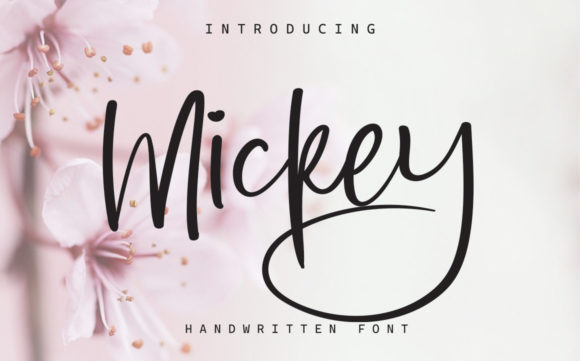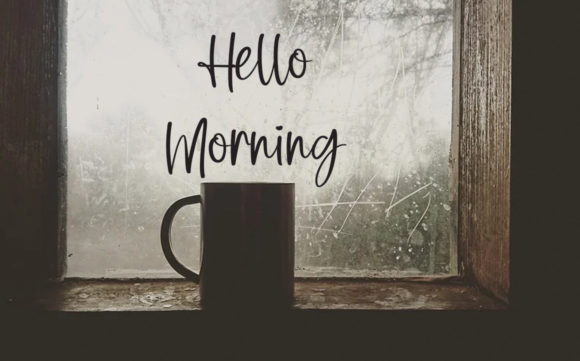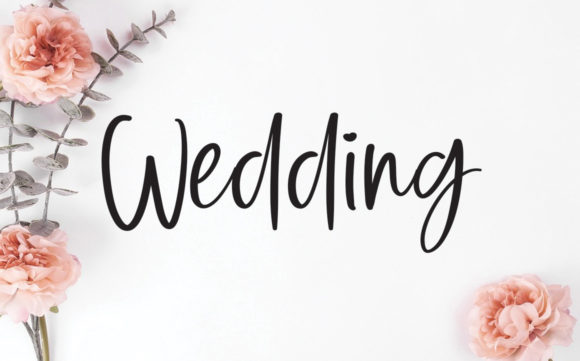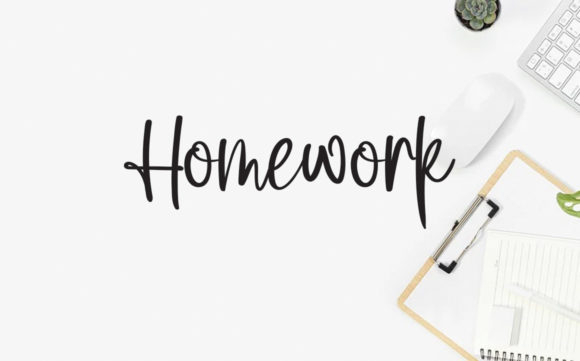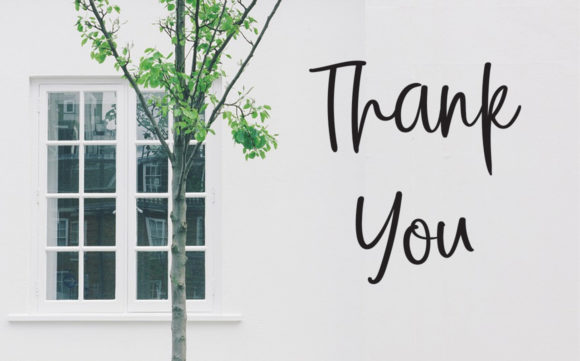
Mickey Font
About Mickey Font
Mickey is a beautiful and flowing script font that brings a unique charm to any design project. Script fonts, like Mickey, are known for their fluidity and elegance, often mimicking the style of handwritten calligraphy. This makes them a popular choice for a variety of projects that require a touch of sophistication and personalization.
Whether you’re working on wall displays, wedding invitations, social media post logos, advertisements, product packaging, product designs, labels, photography, watermarks, invitations, stationery, or any other project, Mickey can add a beautiful script taste to your designs. Its beautiful and flowing nature makes it suitable for both modern and vintage aesthetics, providing a timeless appeal.
In the world of script fonts, Mickey stands out for its unique style. It manages to strike a balance between being beautiful and flowing, making it a great choice for projects that require a delicate touch. Despite its flowing nature, Mickey is robust enough to be used in a variety of applications, from small labels to large signage.
In addition to its aesthetic appeal, Mickey is also practical. It’s easy to read, which is an important consideration when choosing a script font. Despite its beautiful, handwritten style, Mickey remains legible even at smaller sizes, making it a reliable choice for a wide range of applications.
In conclusion, Mickey is more than just a beautiful and flowing script font. It’s a versatile design tool that can bring a unique, personal touch to your projects. Whether you’re a seasoned designer or just starting out, Mickey is a script font worth considering. Its combination of style, versatility, and legibility make it a standout choice in the world of script fonts. So, if you’re looking for a script font that can add a beautiful script taste to your projects, Mickey might just be the perfect fit.